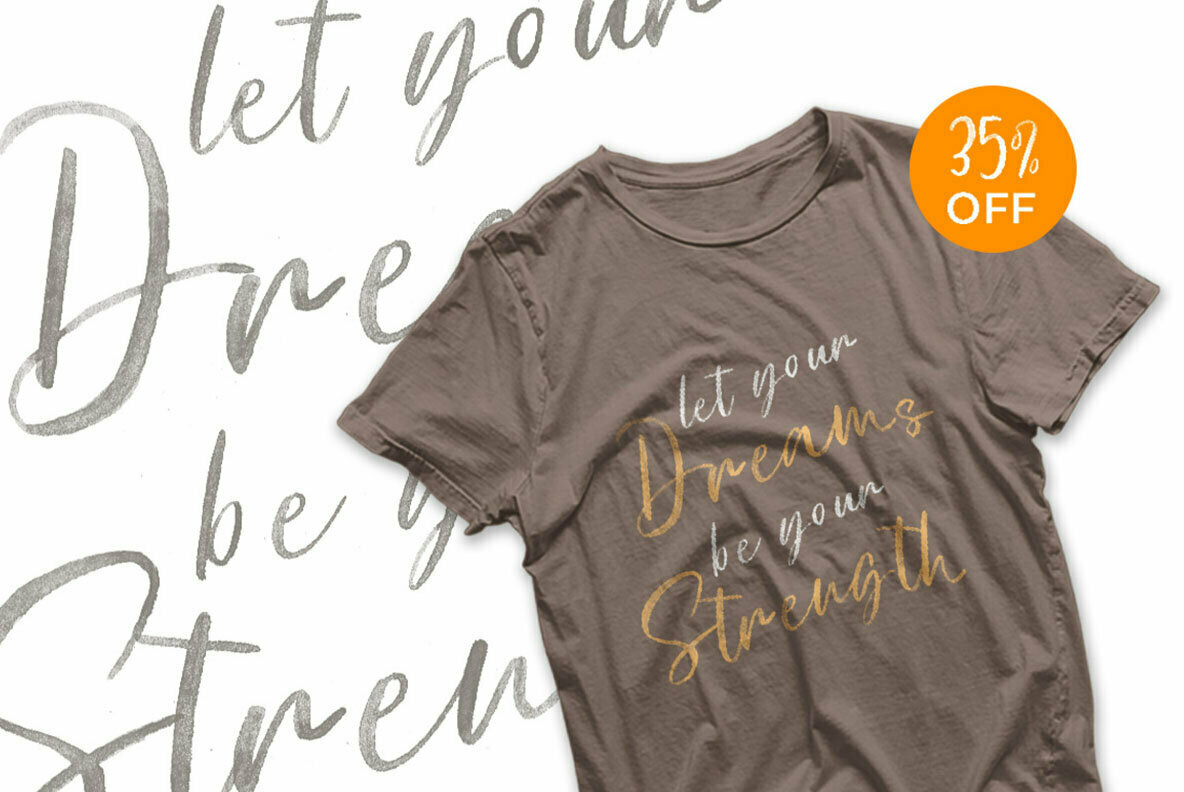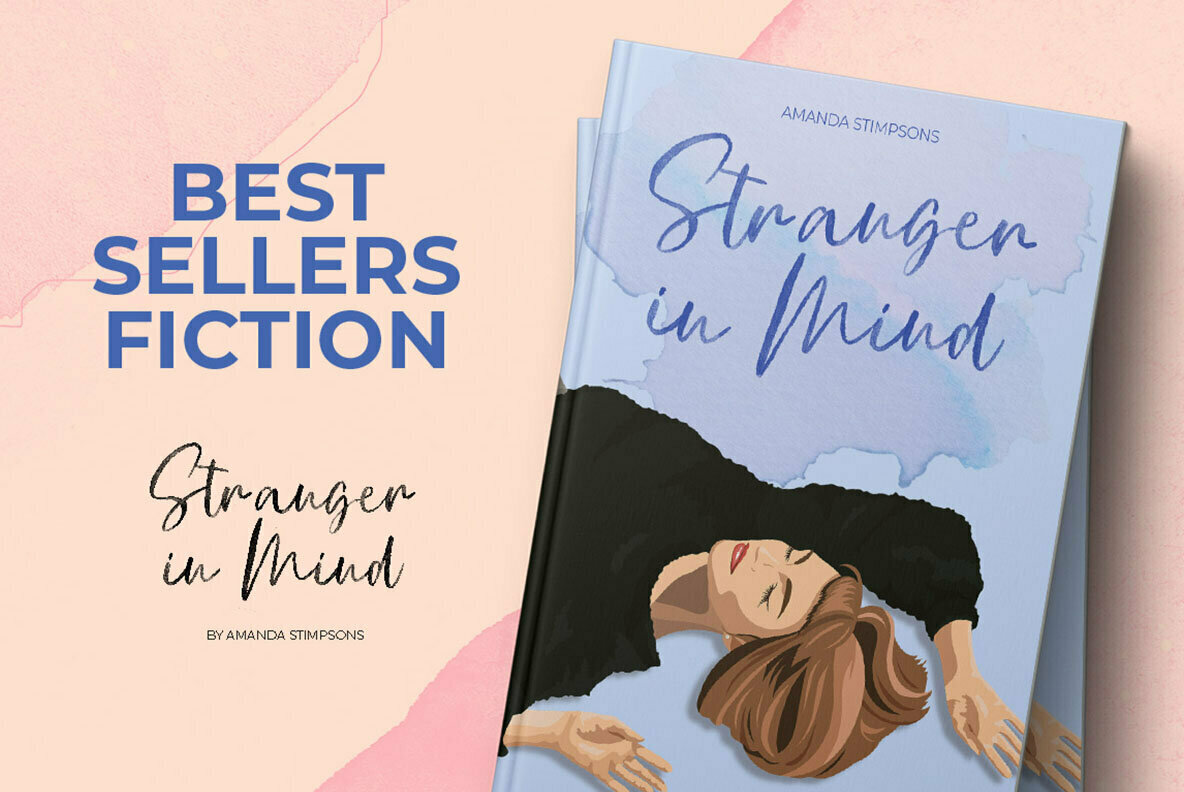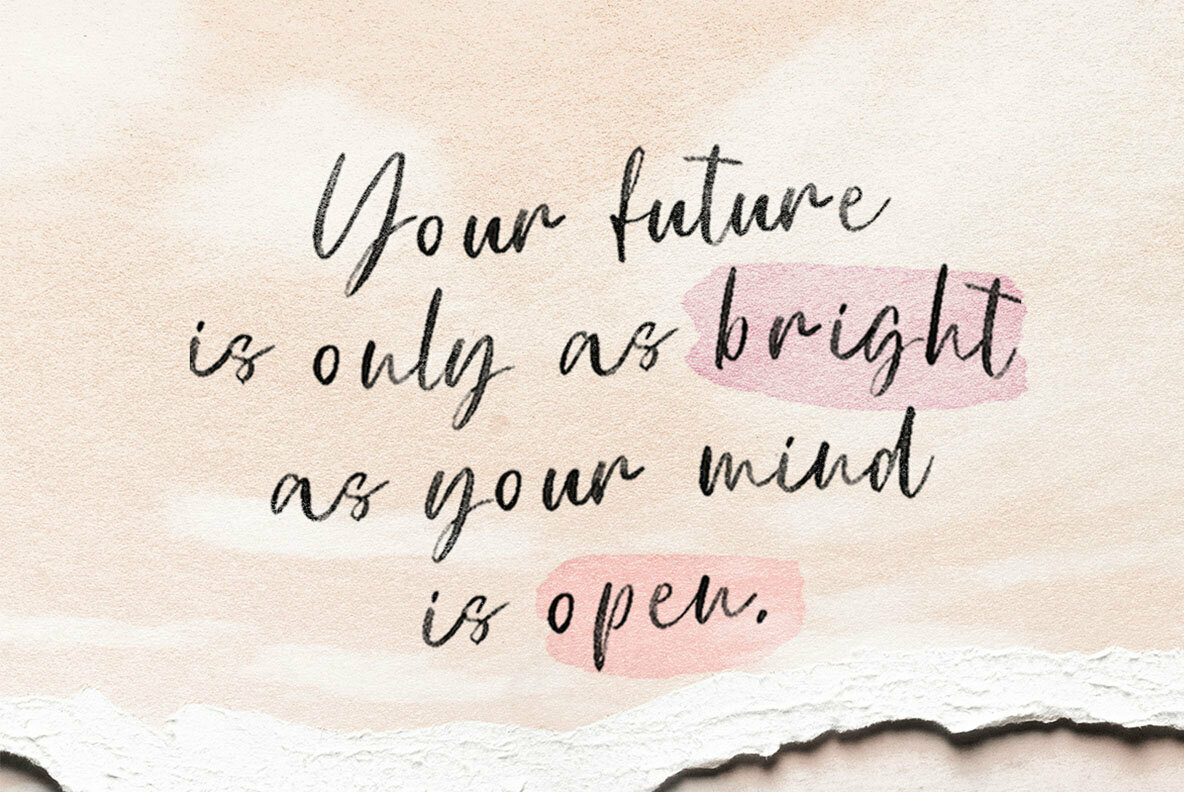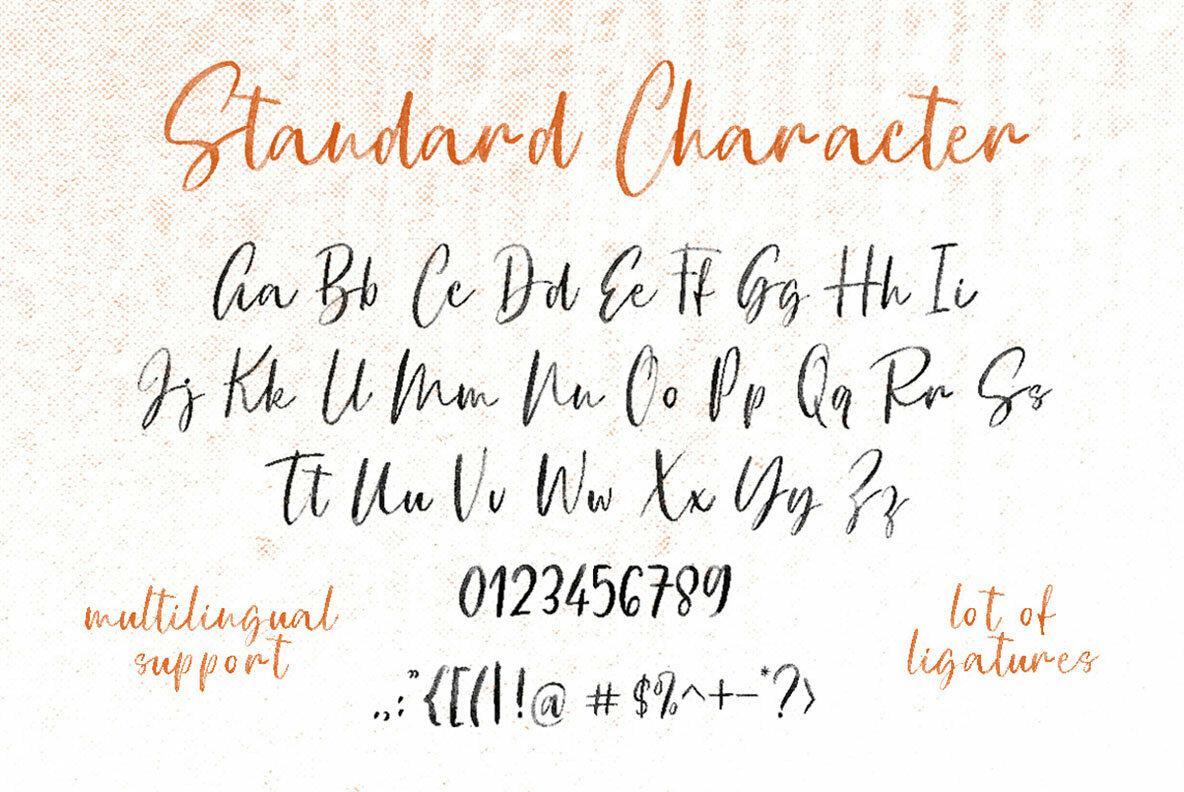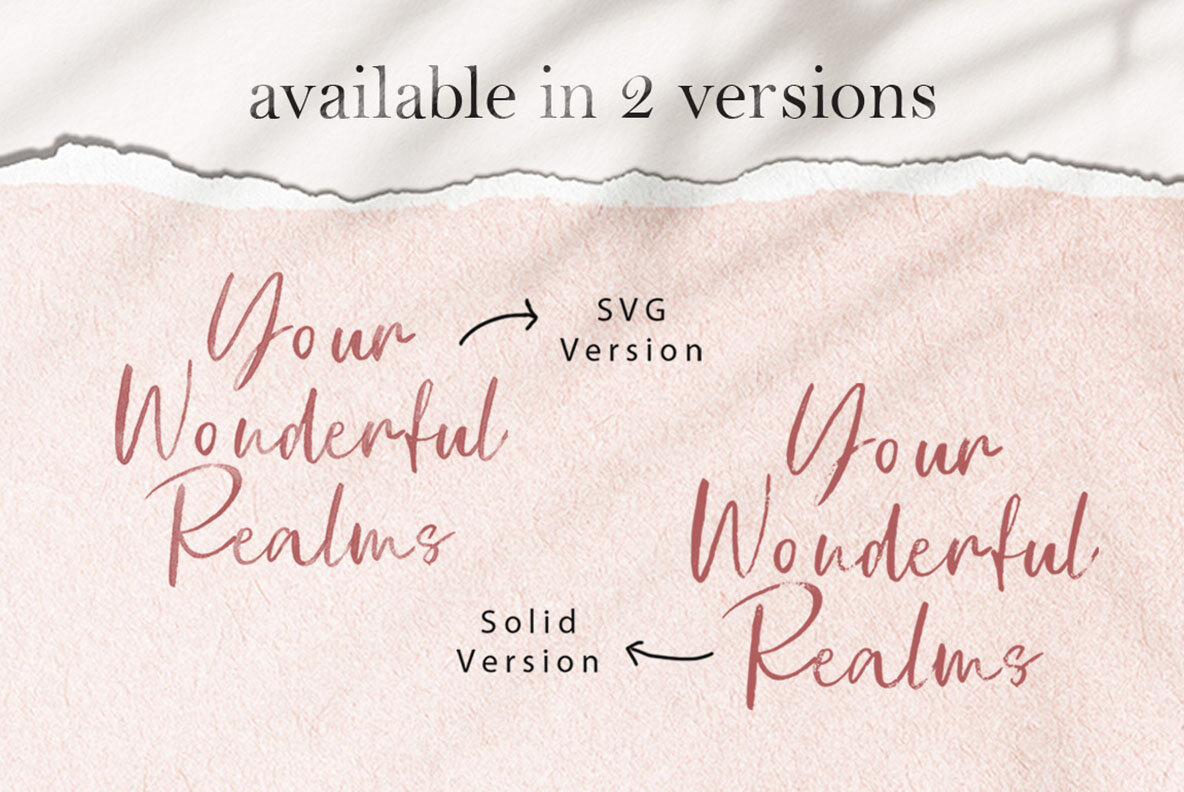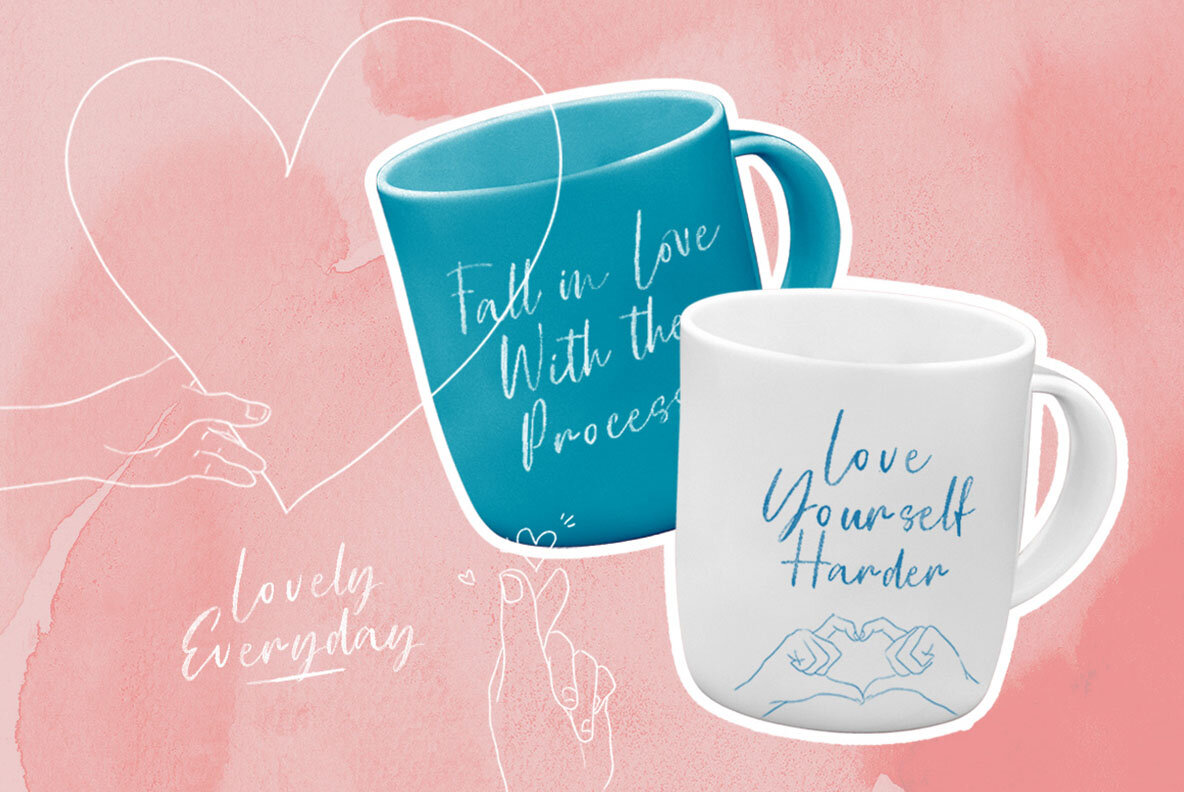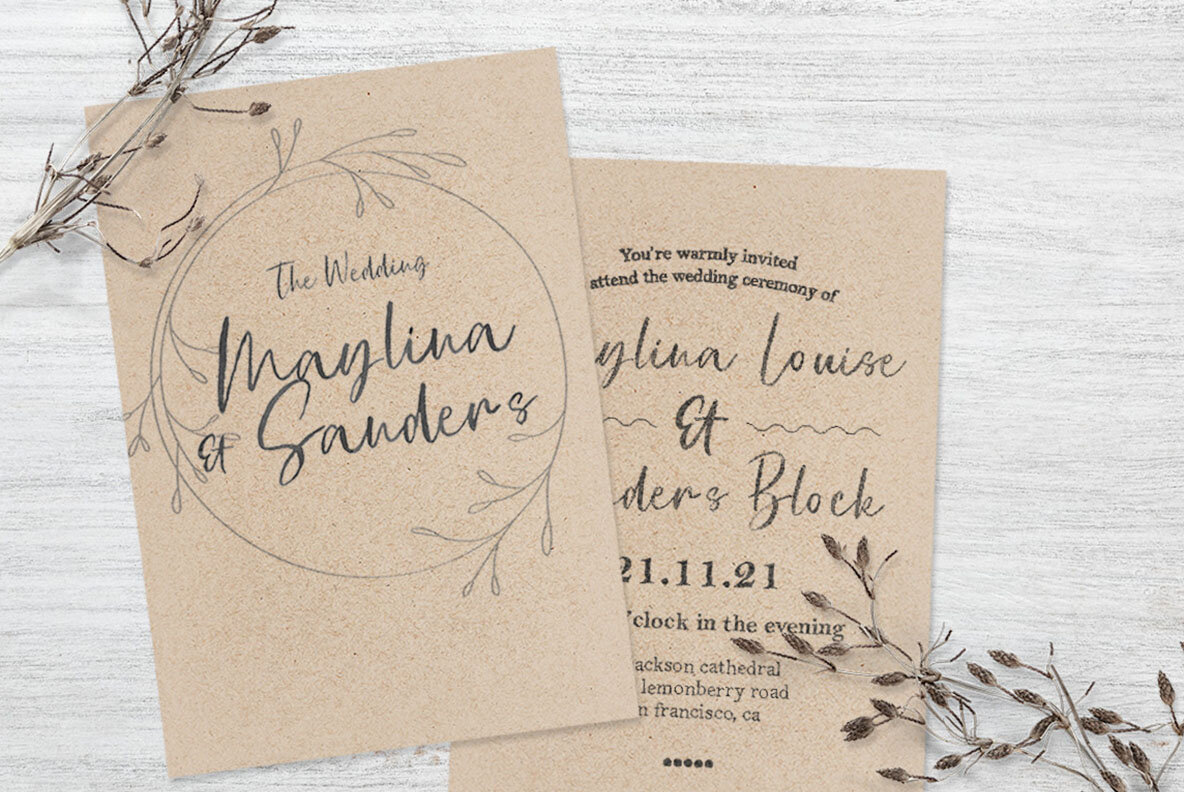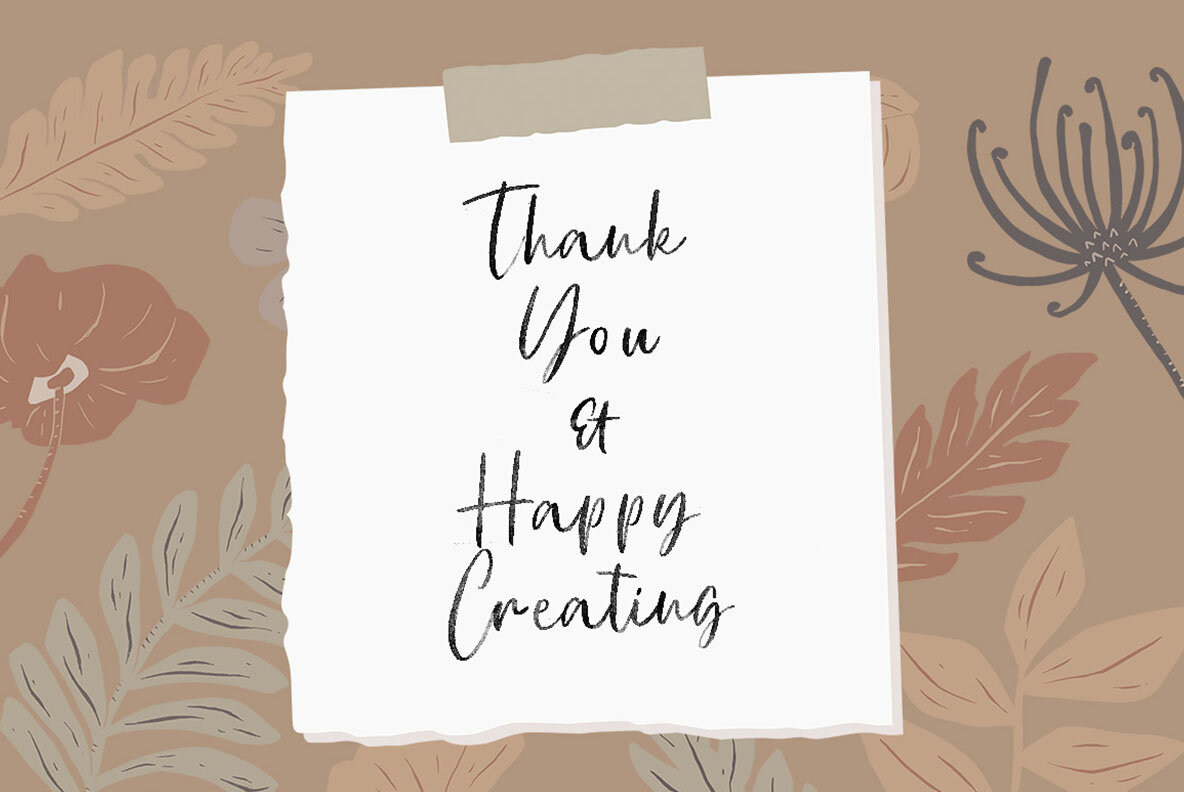
Mina Jackstone - SVG Font
The Mina Jackstone font by Letterhend Studio stands out with its unique watercolor texture effect, designed in a versatile SVG typeface. This creative font family offers both a solid and a transparent version, making it ideal for a wide range of uses from logos to wedding cards.Mina Jackstone: Watercolor SVG Font
The Mina Jackstone font is perfect for invitations, labels, stationery, and more. Its distinctive style offers a fresh touch to all your design projects.